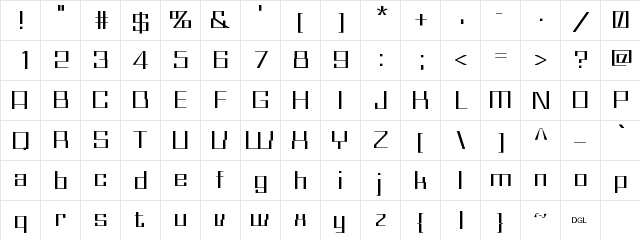
Whiz Kid Regular
| Foundry | Digital Graphic Labs |
| Designer | Digital Graphic Labs |
Design Context for Whiz Kid Typeface
Whiz Kid offers clean, dependable letterforms without strong stylistic allegiance, making it a practical choice for designers who need flexibility.
Pro Tip: Pair Whiz Kid with a font of contrasting weight or personality to build a more expressive typographic hierarchy.